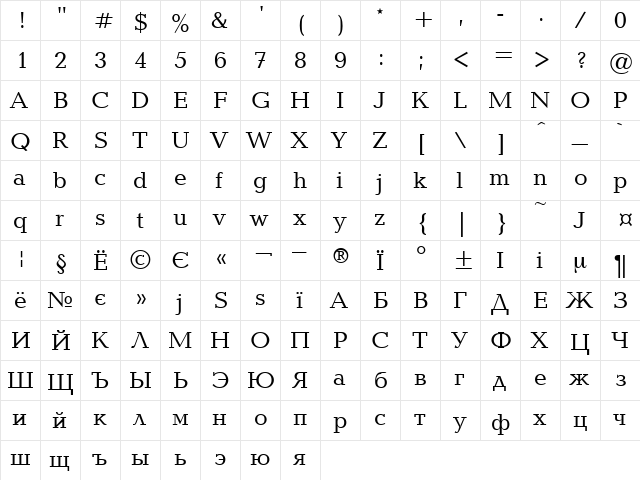
Baltic Regular
Design Context for Baltic Typeface
Baltic is a composed and adaptable typeface that performs quietly and consistently across a wide range of design contexts.